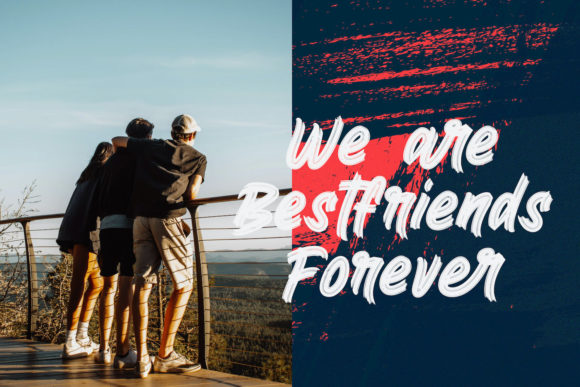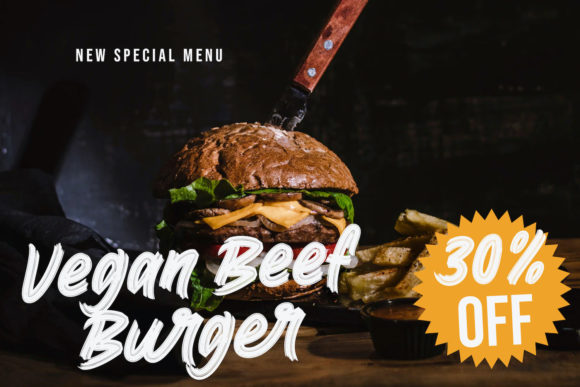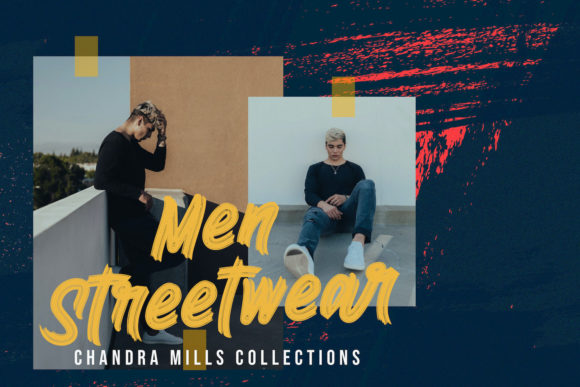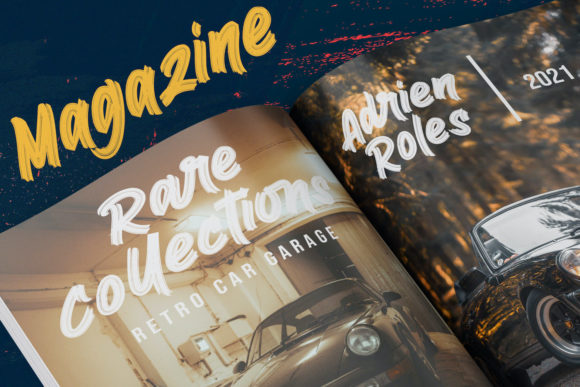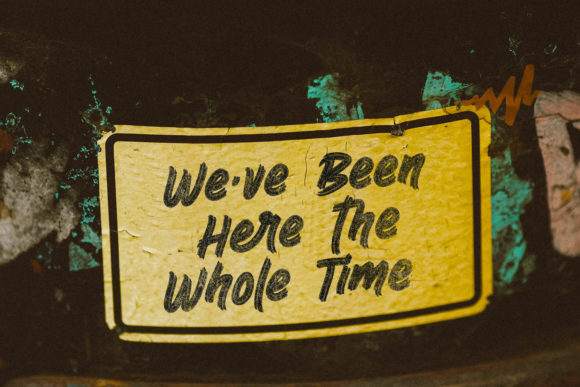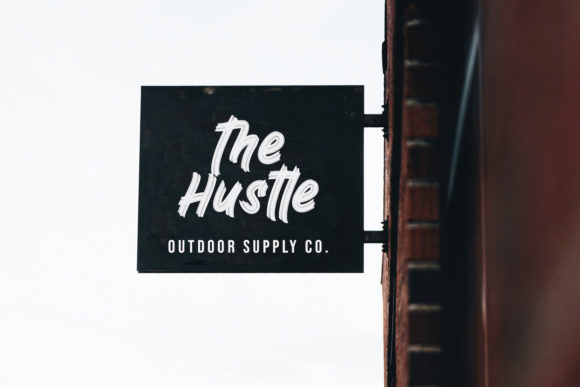
Bingo Reky Font: Add a Touch of Joy to Your Designs
In the world of typography, fonts play a crucial role in conveying the tone and personality of a design. If you’re looking for a font that exudes fun, playfulness, and joy, look no further than Bingo Reky. This cool and brushed display font is perfect for designers and crafters who want to add a touch of whimsy to their creations.
What is Bingo Reky Font?
Bingo Reky is a unique and eye-catching font that features a brushed display style. Its irregular texture and bold lines give it a distinctive look that’s sure to grab attention. This font is perfect for designs that require a playful and energetic vibe, making it ideal for projects such as cartoon-related designs, children games, quotes, titles, brand names, book covers, posters, and more.
Key Features of Bingo Reky Font
- Brushed Display Style: Bingo Reky features a unique brushed display style that gives it a textured and hand-crafted look.
- Playful and Energetic: This font exudes a sense of fun and playfulness, making it perfect for designs that require a lighthearted touch.
- Versatile: Bingo Reky can be used for a wide range of design projects, from cartoon-related designs to book covers and posters.
- Easy to Read: Despite its playful style, Bingo Reky is easy to read, making it perfect for use in titles, headings, and quotes.
Use Cases for Bingo Reky Font
Bingo Reky is a versatile font that can be used in a variety of design projects. Here are some use cases to get you started:
- Cartoon-Related Designs: Bingo Reky is perfect for designing cartoon characters, logos, and titles.
- Children Games: This font is great for creating game titles, headings, and instructions that require a playful touch.
- Quotes and Titles: Bingo Reky can be used to add a touch of personality to quotes, titles, and headings.
- Book Covers: This font is ideal for book covers that require a playful and eye-catching title.
- Posters: Bingo Reky can be used to create bold and attention-grabbing posters for events, promotions, and more.
Tips for Using Bingo Reky Font
Here are some tips to help you get the most out of Bingo Reky:
- Use it as a Display Font: Bingo Reky is designed to be used as a display font, so use it sparingly to add emphasis to your design.
- Pair it with a Simple Font: Pair Bingo Reky with a simple font to create contrast and add visual interest to your design.
- Experiment with Colors: Bingo Reky looks great in bold and bright colors, so don’t be afraid to experiment and find the perfect color scheme for your design.
Bingo Reky is a unique and versatile font that’s perfect for designers and crafters who want to add a touch of joy to their designs. Its brushed display style and playful personality make it ideal for a wide range of design projects, from cartoon-related designs to book covers and posters. With its ease of use and flexibility, Bingo Reky is a great addition to any designer’s font library.